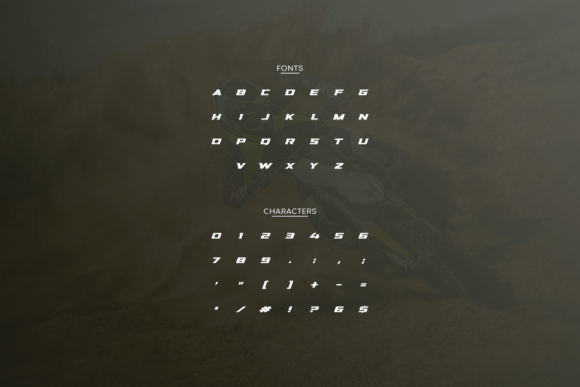
Croser Font
Croser is a cool sports display font with wide italics, modern cutouts, and a dynamic slant. Ideal for fast car racing sports titles, running matches, cycling, automotive game logos and monograms or other modern dynamic text.